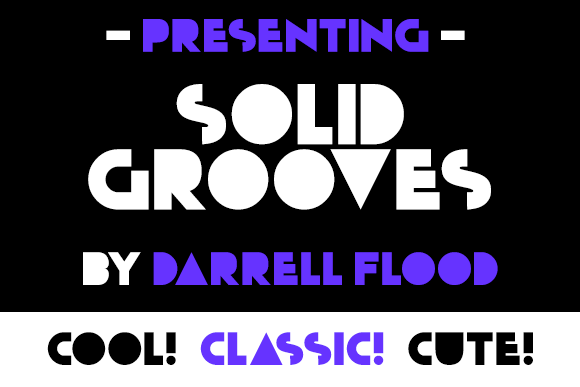
Solid Grooves
Solid Grooves Font
A high impact font with solid letterforms.
Font created by Darrell Flood.
Fixed all known kerning issues. All characters now have equal spacing.